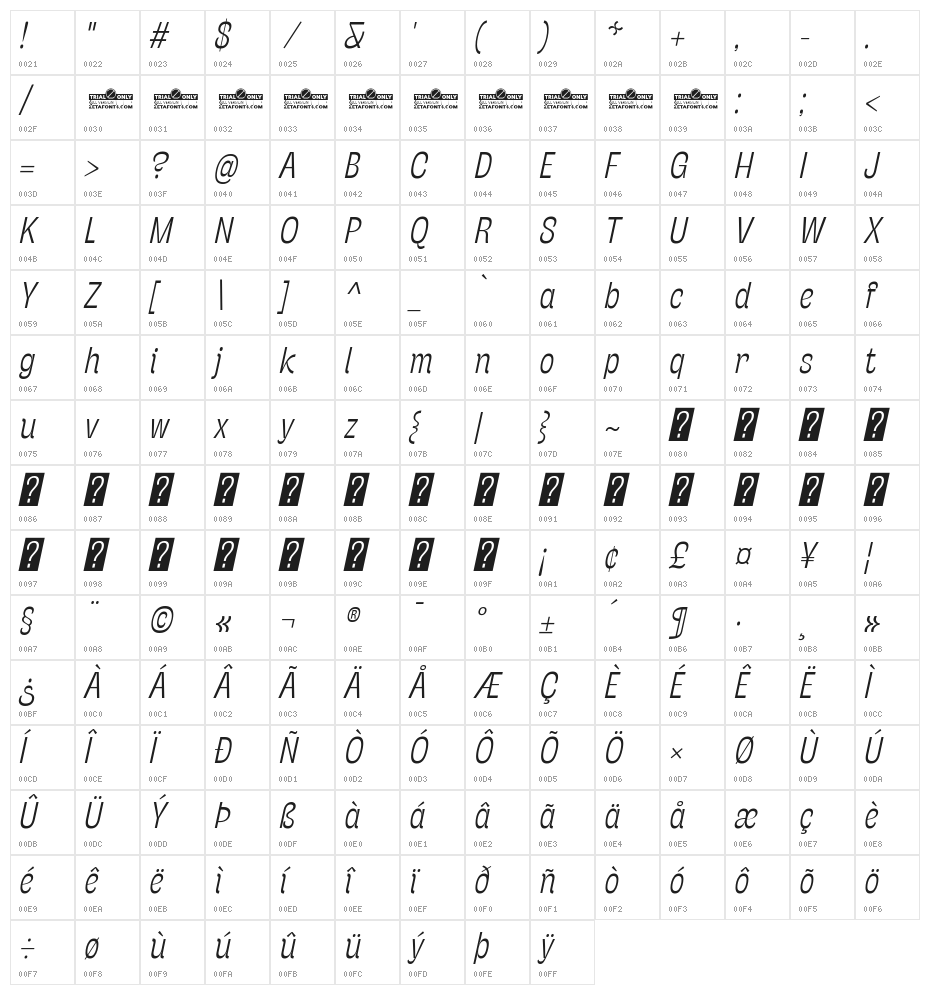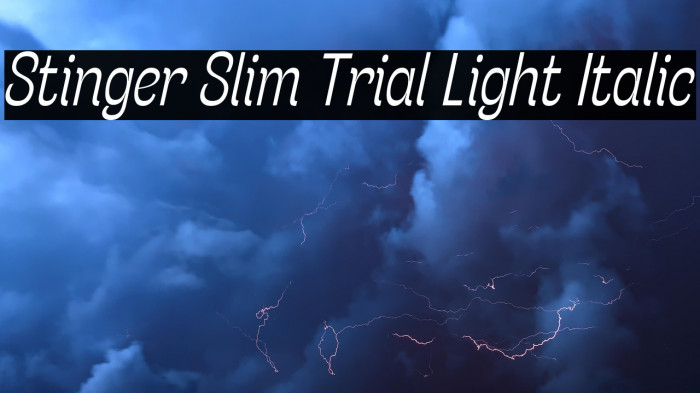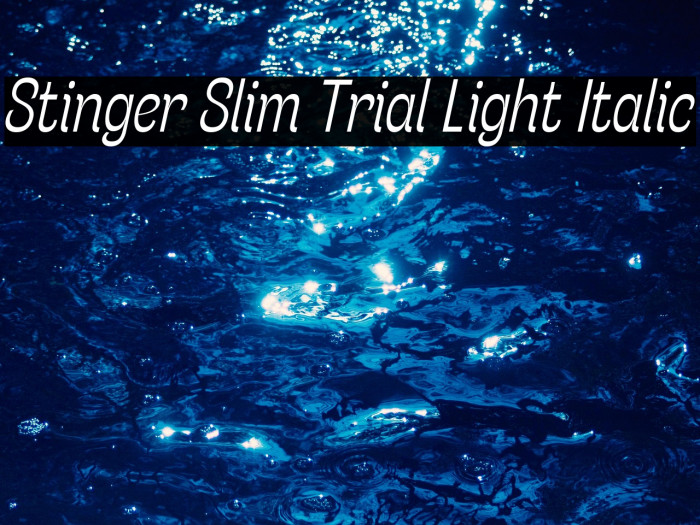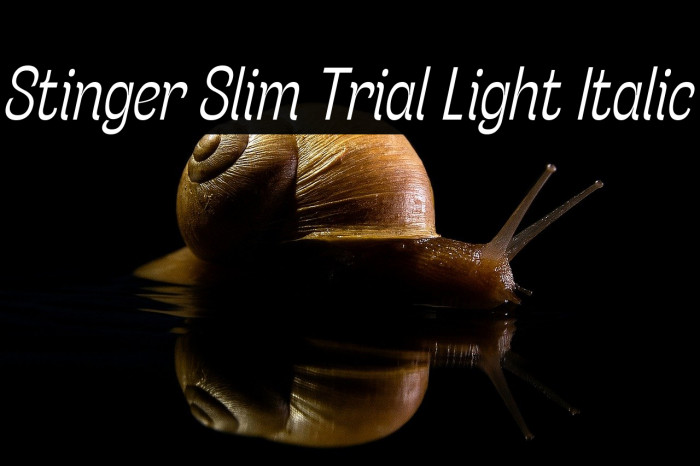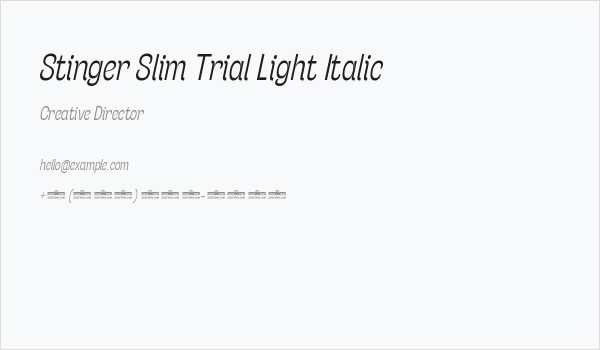
Stinger Slim Trial Light Italic Font
Stinger Slim Trial Light Italic Description
This font features a sleek and modern design with a slim and elegant appearance. The characters are slightly italicized, giving them a dynamic and sophisticated look. The strokes are light, contributing to a refined and airy feel. The uppercase and lowercase letters maintain a consistent style, with smooth curves and clean lines. The numerals and special characters are designed to complement the overall aesthetic, ensuring versatility across various applications. The font's minimalistic approach makes it suitable for contemporary design projects.
| Proposed Projects | Ideal for modern branding, fashion magazines, elegant invitations, and minimalist web design. |